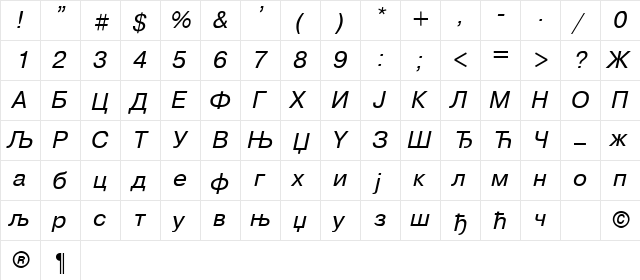
Helvetica-Cirilica Italic
Design Context for Helvetica-Cirilica Typeface
Helvetica-Cirilica takes a measured approach to typography — its balanced proportions and neutral character make it a reliable workhorse for both digital and print work. The slanted form adds forward momentum and visual energy.
Pro Tip: Try Helvetica-Cirilica for annotation and caption copy alongside an upright companion — the contrast in angle creates a dynamic but ordered typographic system.